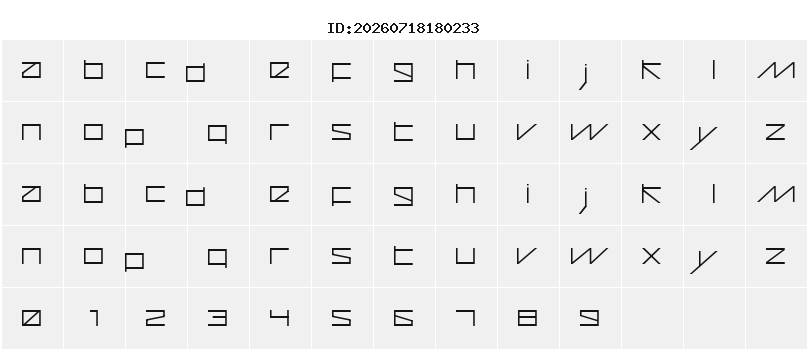
Cubos Preview
• Font Name: Cubos
• Full Font Name: Cubos
• PostScript Name: Cubos-Regular
About Cubos.ttf
Cubos.ttf is a modern, elegant sans-serif font designed for ultimate readability and visual harmony. Perfect for branding, headlines, web design, and print materials.